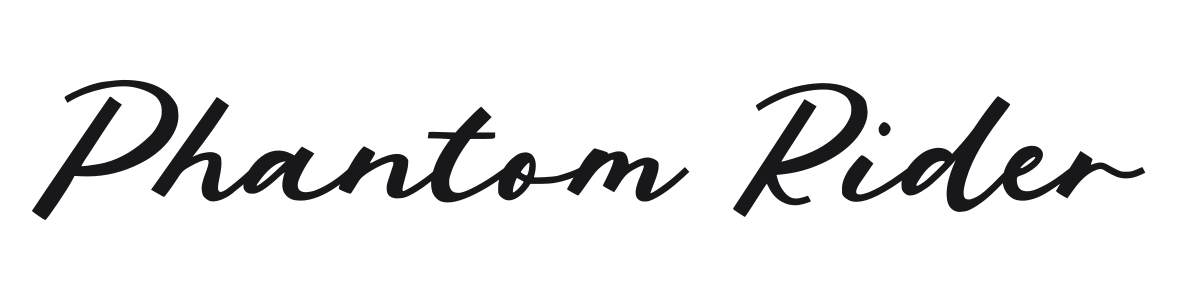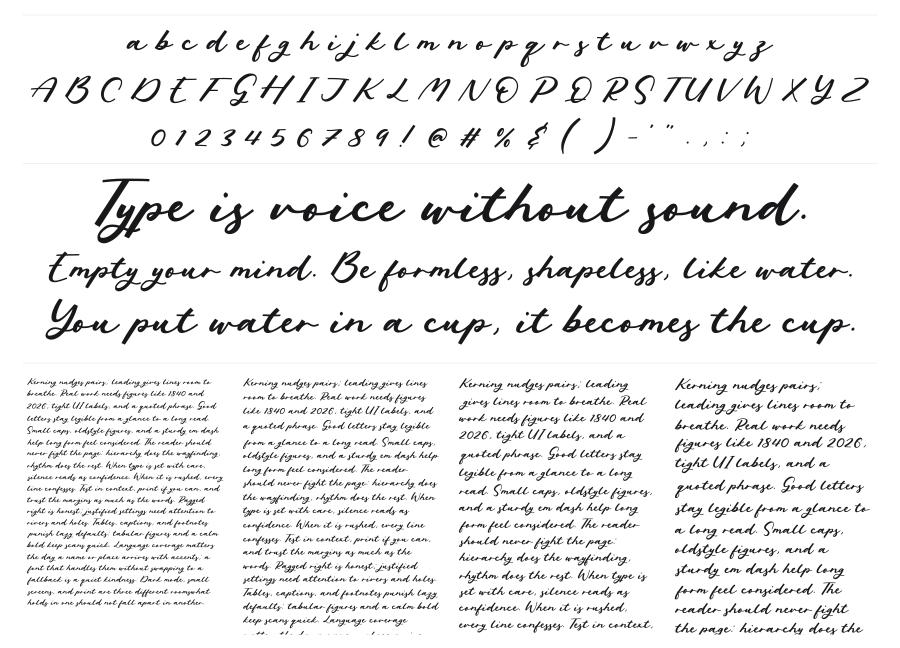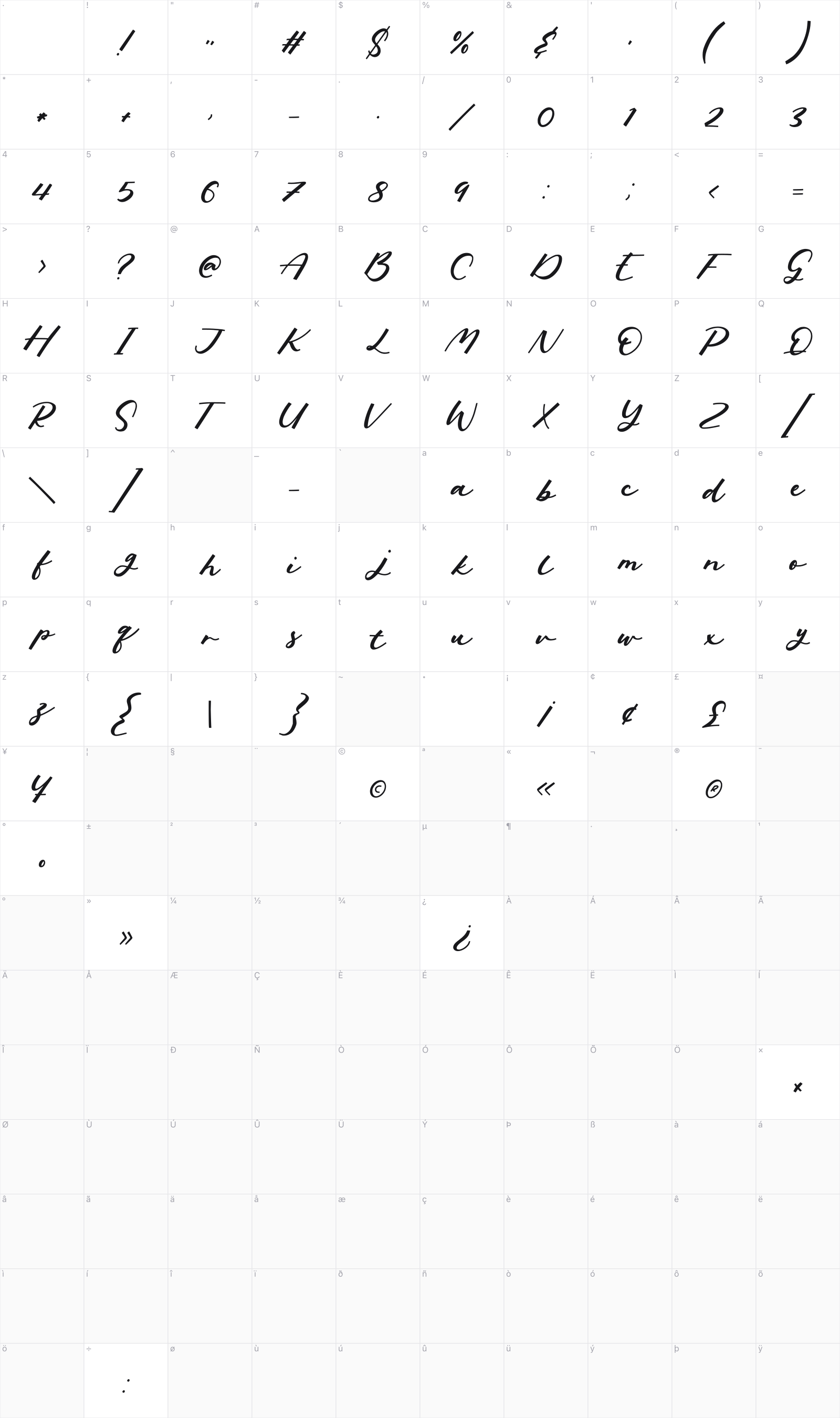
Phantom Rider
Phantom Rider is a casual brush script with loose, connected strokes that feel pulled straight from a hand-lettered sign. The natural stroke contrast and gently undulating baseline give it an authentic, slightly worn energy without feeling sloppy. It suits logos, poster headlines, and packaging where a bold handmade touch is the point.